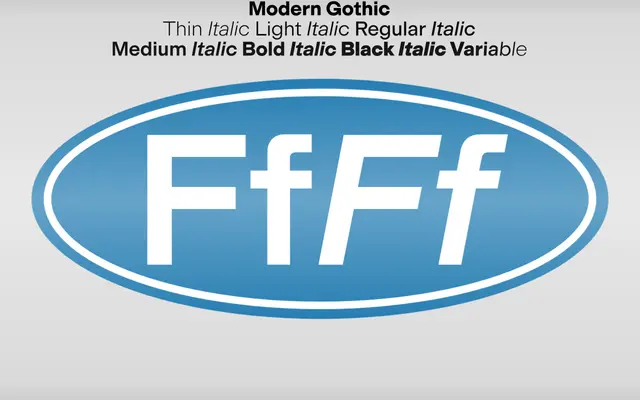
Modern Gothic specimen from AllCaps
A six-weight grotesque with matching italics, a variable font, and an unusually thorough OpenType feature set suited to editorial and information-heavy typesetting.
Running from Thin to Black with italic counterparts at every weight, the family includes a fully variable file covering both weight and italic axes. The OpenType palette is notably complete, covering fractions, ordinals, case-sensitive forms, tabular figures, scientific inferiors and stylistic alternates including single-storey 'a' and 'g'. Specimen copy drawn from Baudrillard and David Foster Wallace signals an editorial positioning around media, information and civic discourse.
A neo-grotesque with alternate single-storey 'a' and 'g' forms, extensive OpenType feature set, and a variable font, placing it squarely in the grotesque sans-serif tradition with contemporary refinements.